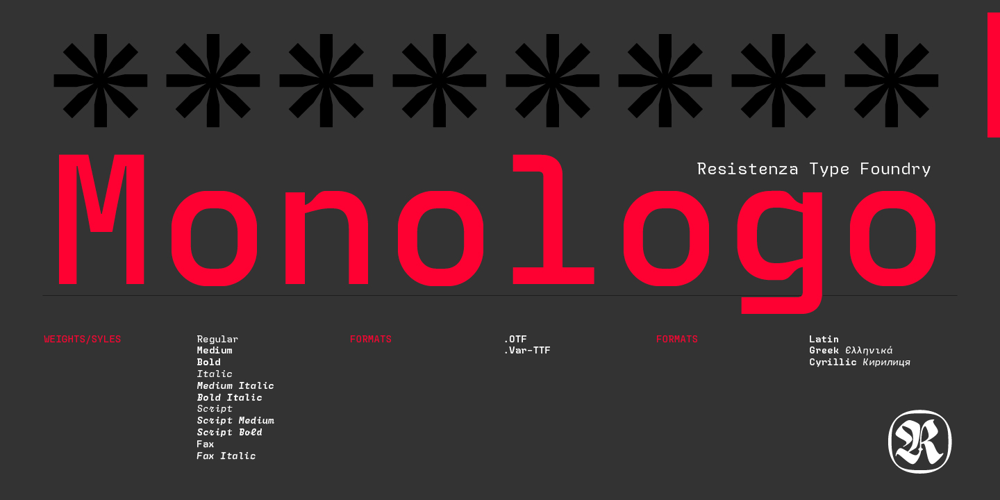
Monologo Font Family was designed by Giuseppe Salerno, Paco González and published by Resistenza. Monologo contains 14 styles and family package options. Introducing Monologo: a cutting-edge monospaced font family meticulously crafted for optimal clarity and legibility, especially on digital screens and at smaller sizes. Its unconventional glyph skeleton sets it apart, ensuring a distinctive and engaging typographic experience. Monologo offers a comprehensive range of styles to suit various design needs. The family includes Regular, Medium, and Bold weights, accompanied by their respective italic counterparts—Medium Italic and Bold Italic. For added versatility and warmth, script versions are also available across three weights, infusing a human touch into this modern monospace collection. As a testament to its versatility, Monologo features two extra styles named Fax, which imbue designs with a nostalgic, grungy aesthetic reminiscent of fax-printed documents. Whether you’re designing for digital interfaces, print materials, or experimental projects, Monologo equips you with the tools to make a bold statement with clarity and styles.Available in Latin, Greek and Cyrillic